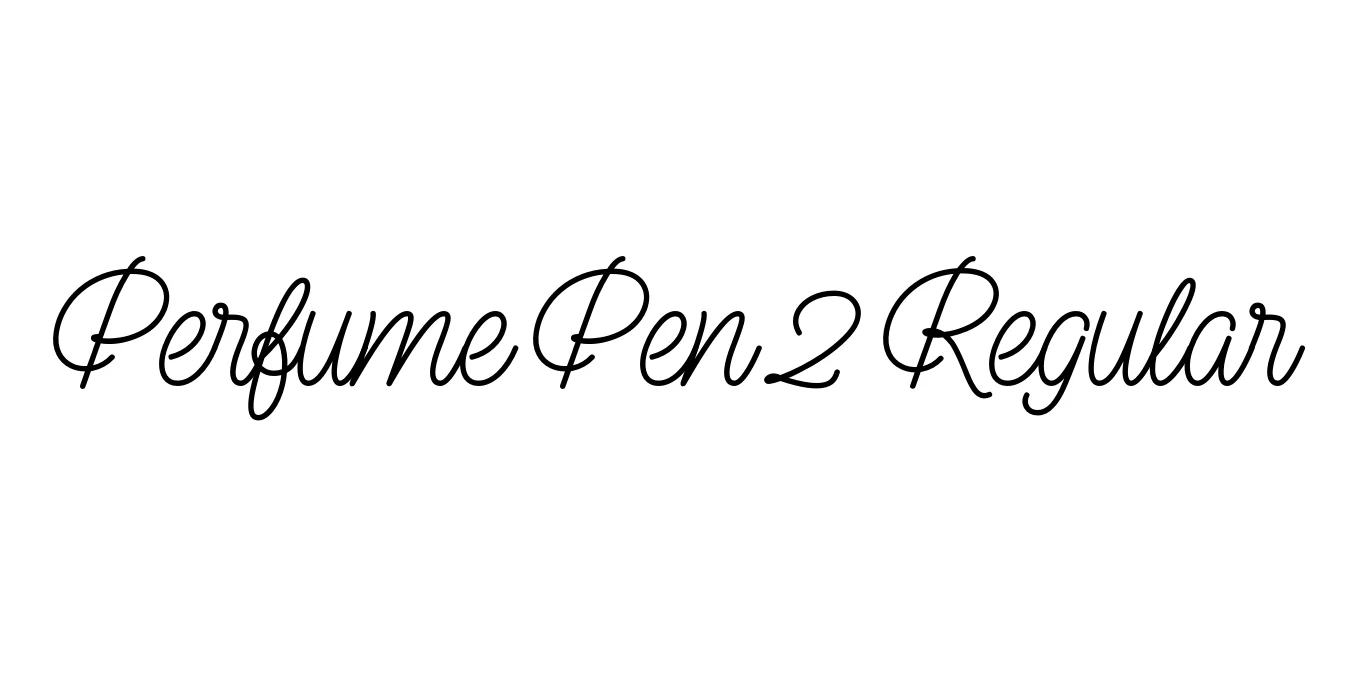
Perfume Pen 2 Regular
Designed by Måns Grebäck
Perfume Pen 2 Regular is an exquisite script typeface designed by Måns Grebäck, serving as a refined evolution of the original Perfume Pen family. This font captures the natural flow and organic rhythm of a high-quality felt-tip pen, featuring smooth transitions and sophisticated ligatures that emulate genuine human handwriting. It is specifically crafted to provide an upscale, high-end aesthetic for creative projects that require a touch of personalization and calligraphic grace.
The typeface is widely recognized for its application in the luxury and beauty sectors, where its sweeping curves and delicate strokes add a distinct sense of refinement. With its extensive range of stylistic alternates and characters, Perfume Pen 2 Regular allows designers to create unique, signature-style typography suitable for wedding invitations, premium packaging, and artistic editorial layouts, making it a versatile tool for high-fashion branding.
Perfume Pen 2 Regular Best Uses
Perfect for high-end cosmetic logos, fashion brand identities, and boutique signage.
Adds a sophisticated and personal touch to formal event stationery and place cards.
Ideal for creating aesthetic quotes and lifestyle-focused content for Instagram and Pinterest.
Enhances the visual appeal of beauty, fragrance, and premium lifestyle products.